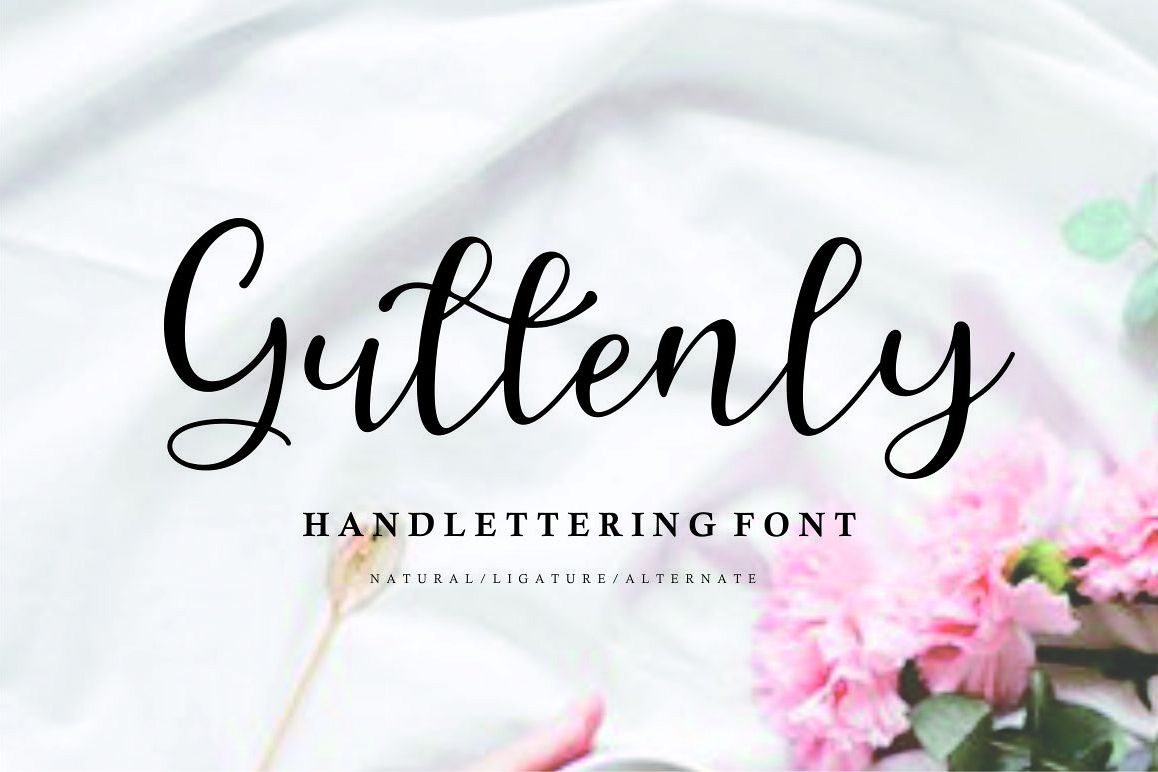
Guttenly // handlettering font
introduce my newest product, Guttenly handlettering script font, I made it as natural as possible and tried many new things.
This font is equipped with good ligature and good alternate.
of course this font is very casual and simple for your various interests such as: design, business cards, quotes, bussines cards, magazines, little books, advertisements, magazines, mockups, and so on.
This font also has multilingual support.